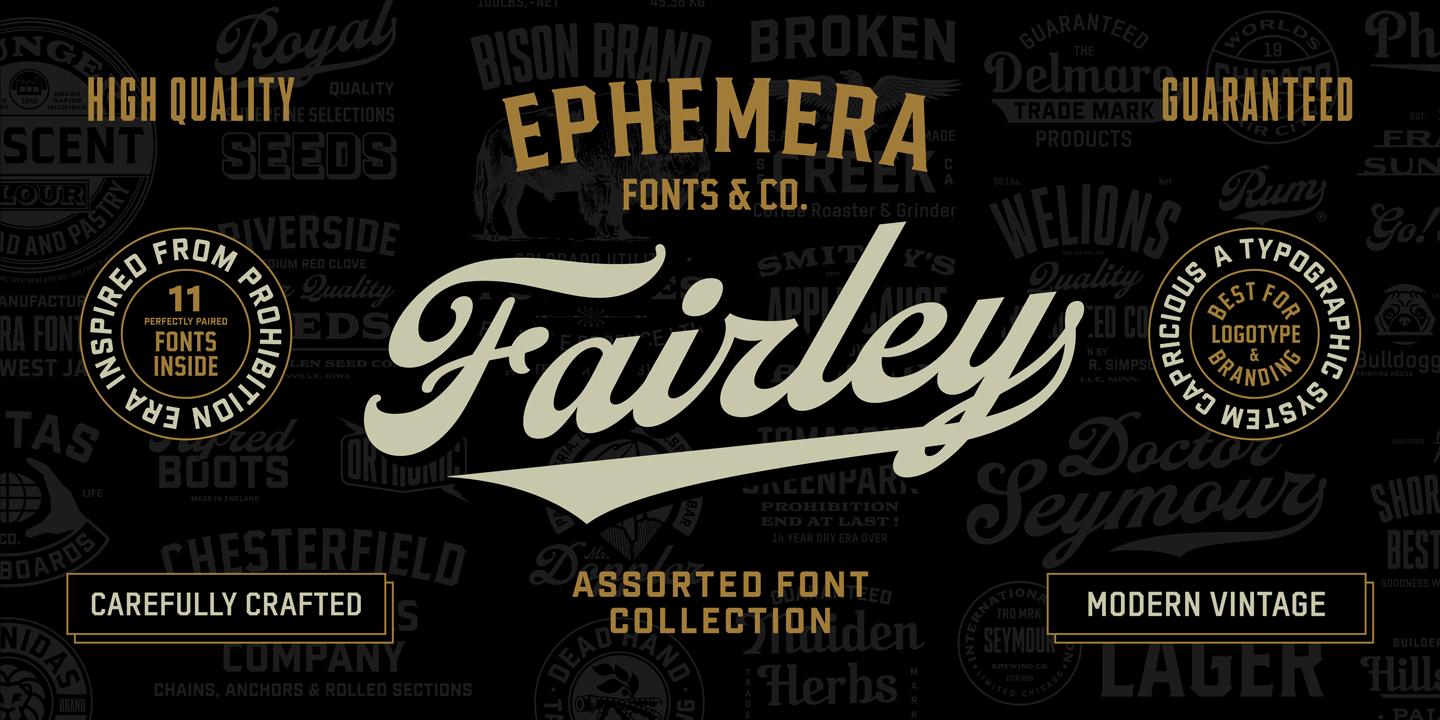
EFCO Fairley Font is perfect for ethical business communications, fair trade company branding, sustainable commerce marketing, transparent corporate governance materials, equitable service provider identities, honest marketplace promotions, balanced financial institution signage, just community organization publications, fair labor practice documentation, and responsible business ethics presentations. Its principled fairness character makes it ideal for projects requiring ethical integrity and equitable representation authenticity.
What makes EFCO Fairley Font exciting is its principled embodiment of ethical business practices and fair commerce with balanced letterforms and justice-inspired characteristics that capture the essence of equitable dealing and ethical excellence. The font features proportionate design elements, fair-minded character details, and balanced stroke construction that create authentic ethical atmosphere and fair business appeal. Its principled personality brings integrity and trustworthiness to contemporary designs while maintaining the clarity essential for ethical communications and fair business presentations. The carefully crafted balanced elements ensure equitable representation while preserving the distinctive character that embodies the essence of fair dealing and ethical excellence.
EFCO Fairley Font comes in multiple ethical variations including Light, Regular, Medium, Bold, and Balanced styles. Each family member maintains the distinctive fair character while offering comprehensive flexibility for ethical typography and equitable brand system development. The complete font family includes alternate characters, ethics symbols, and fair decorative elements that provide extensive tools for creating immersive ethical design experiences and authentic fair business brand storytelling.
Whether you're developing ethical brands, fair trade organizations, or sustainable business projects, EFCO Fairley Font Free Download provides the principled integrity needed to communicate with ethically conscious audiences and fair business communities who appreciate equitable practices and ethical excellence. The font's balanced appeal resonates with ethical business leaders, fair trade professionals, and sustainability advocates seeking authentic ethical credibility and fair business sophistication. Its comprehensive character set includes ethics symbols and fairness marks, making it perfect for creating complete ethical brand systems and memorable fair business storytelling across diverse sustainability applications and integrity-focused design projects that celebrate ethical business and fair commerce excellence.